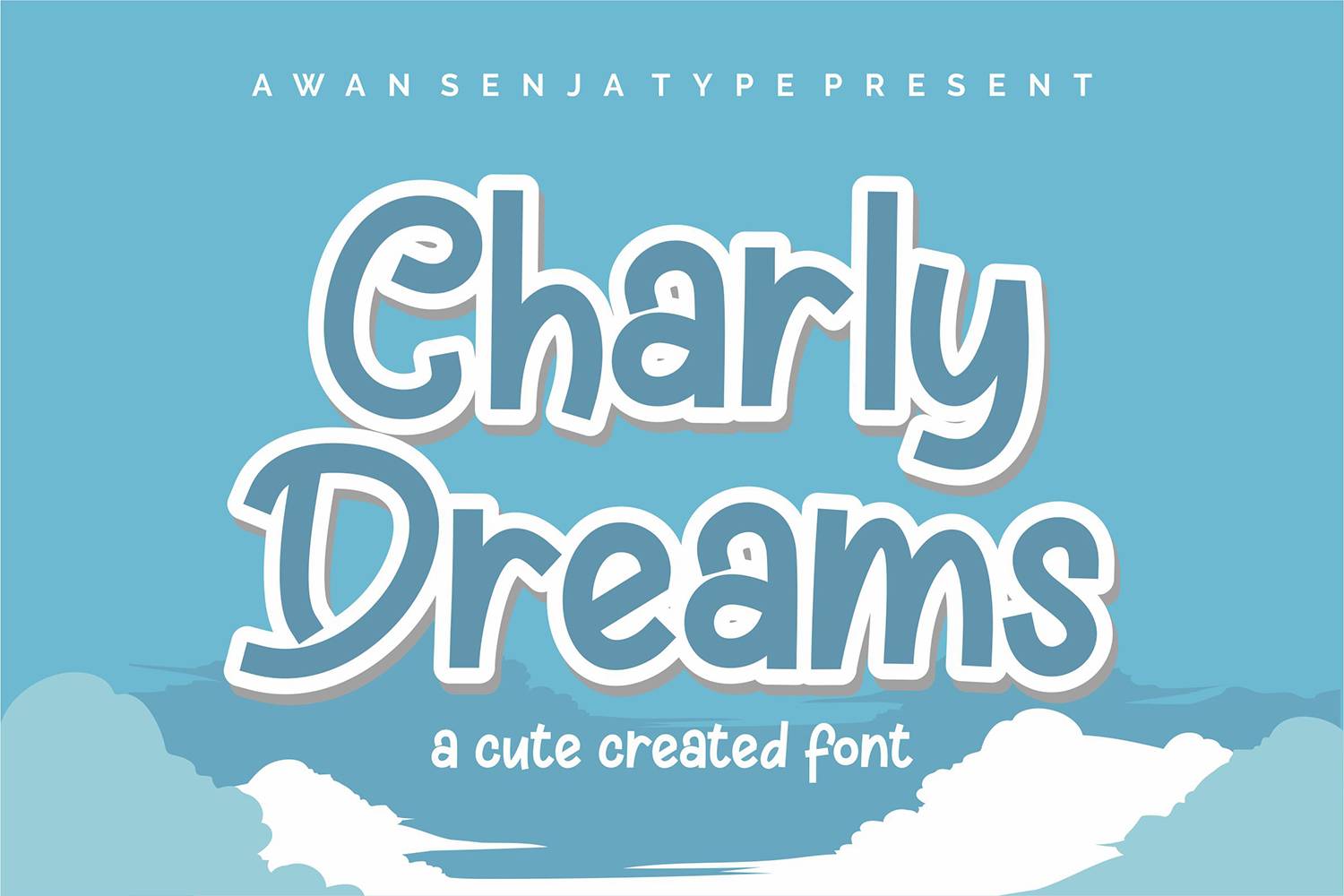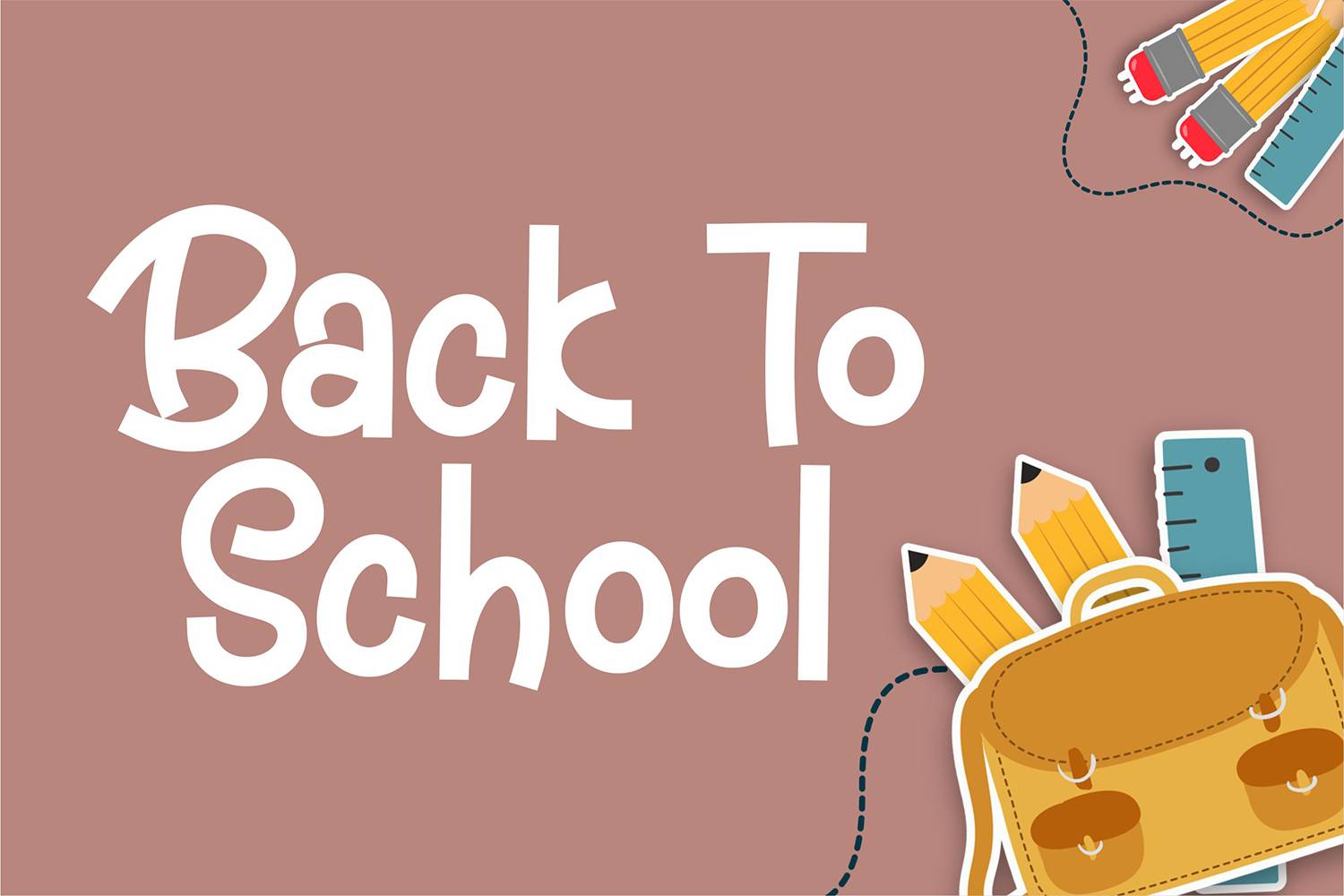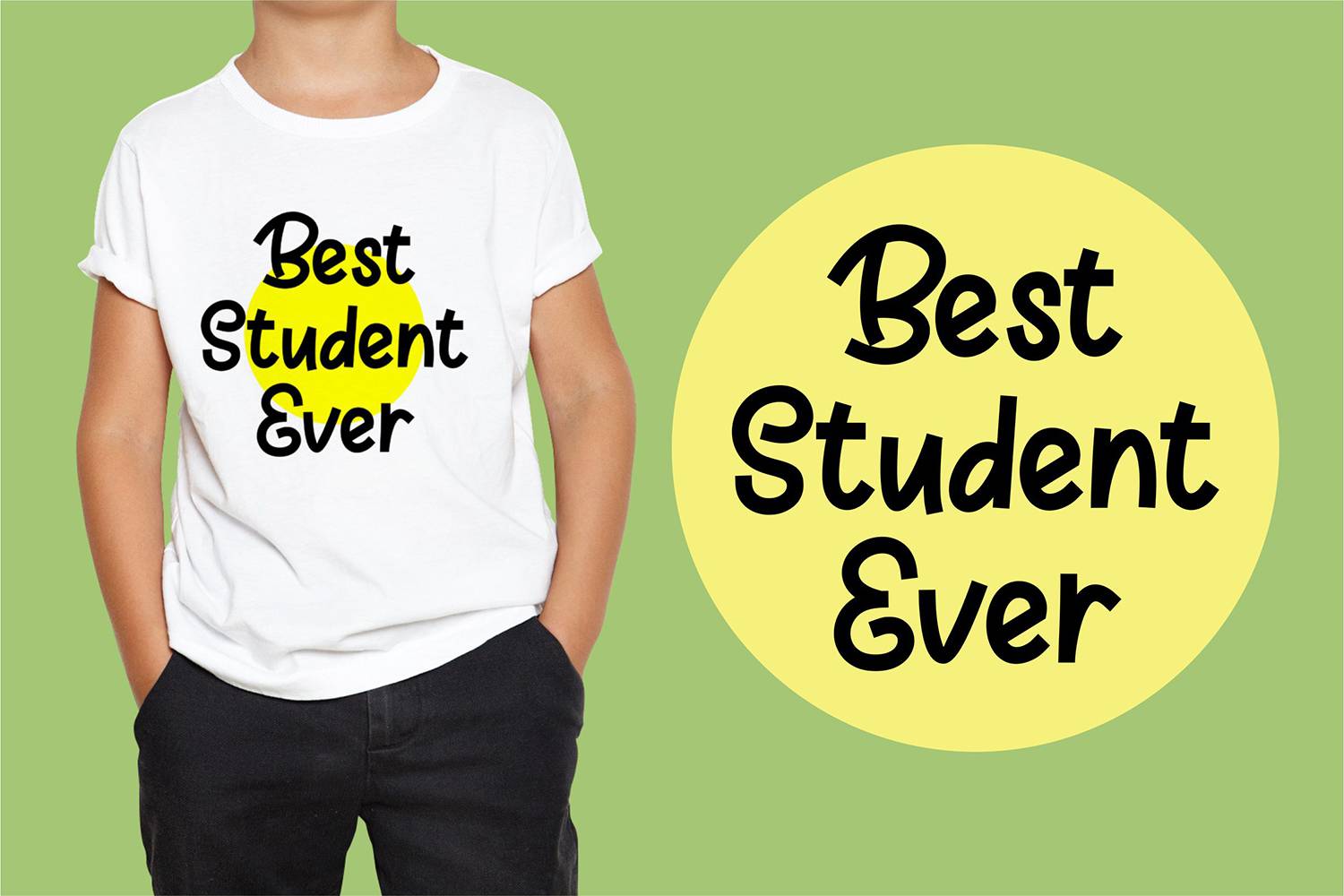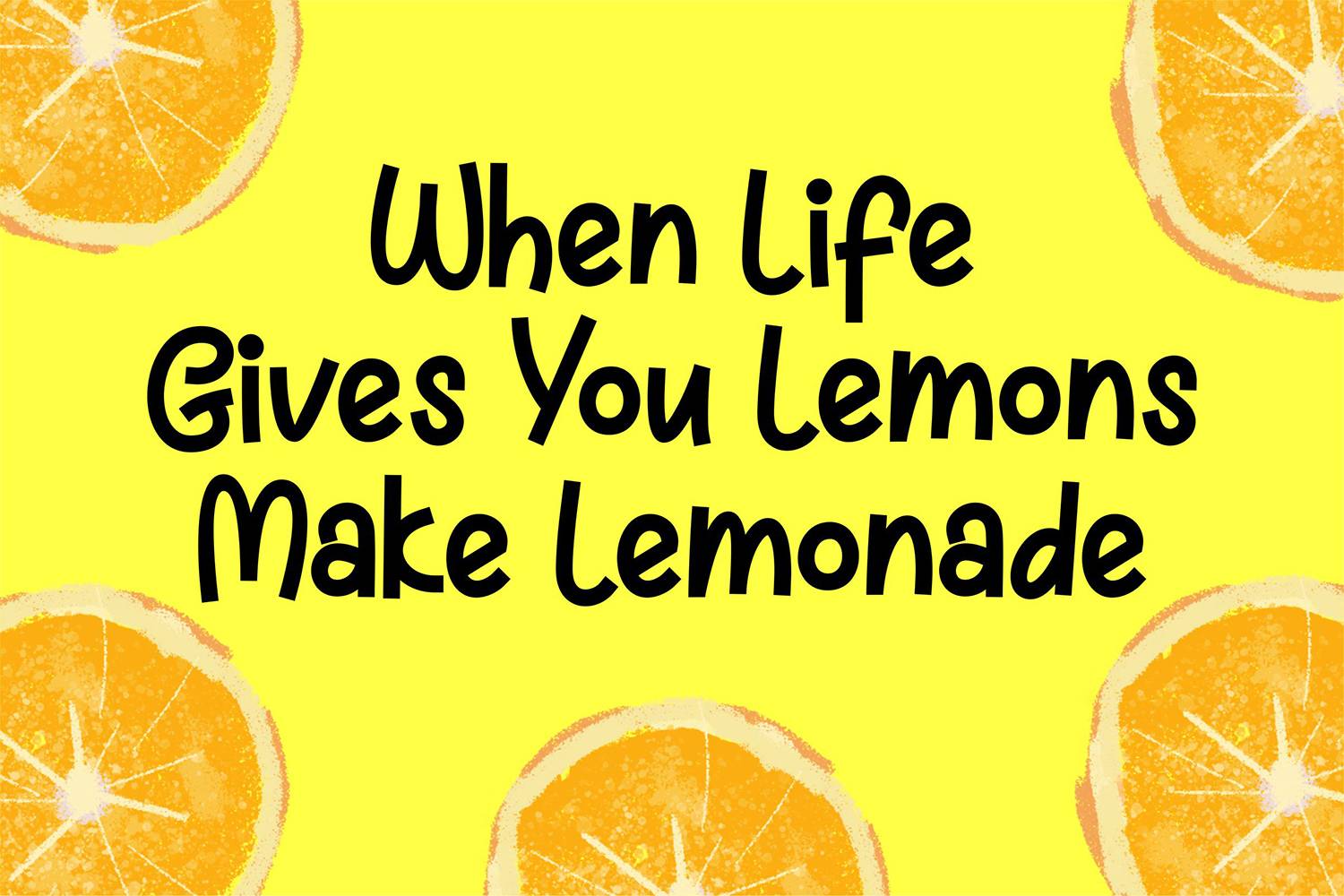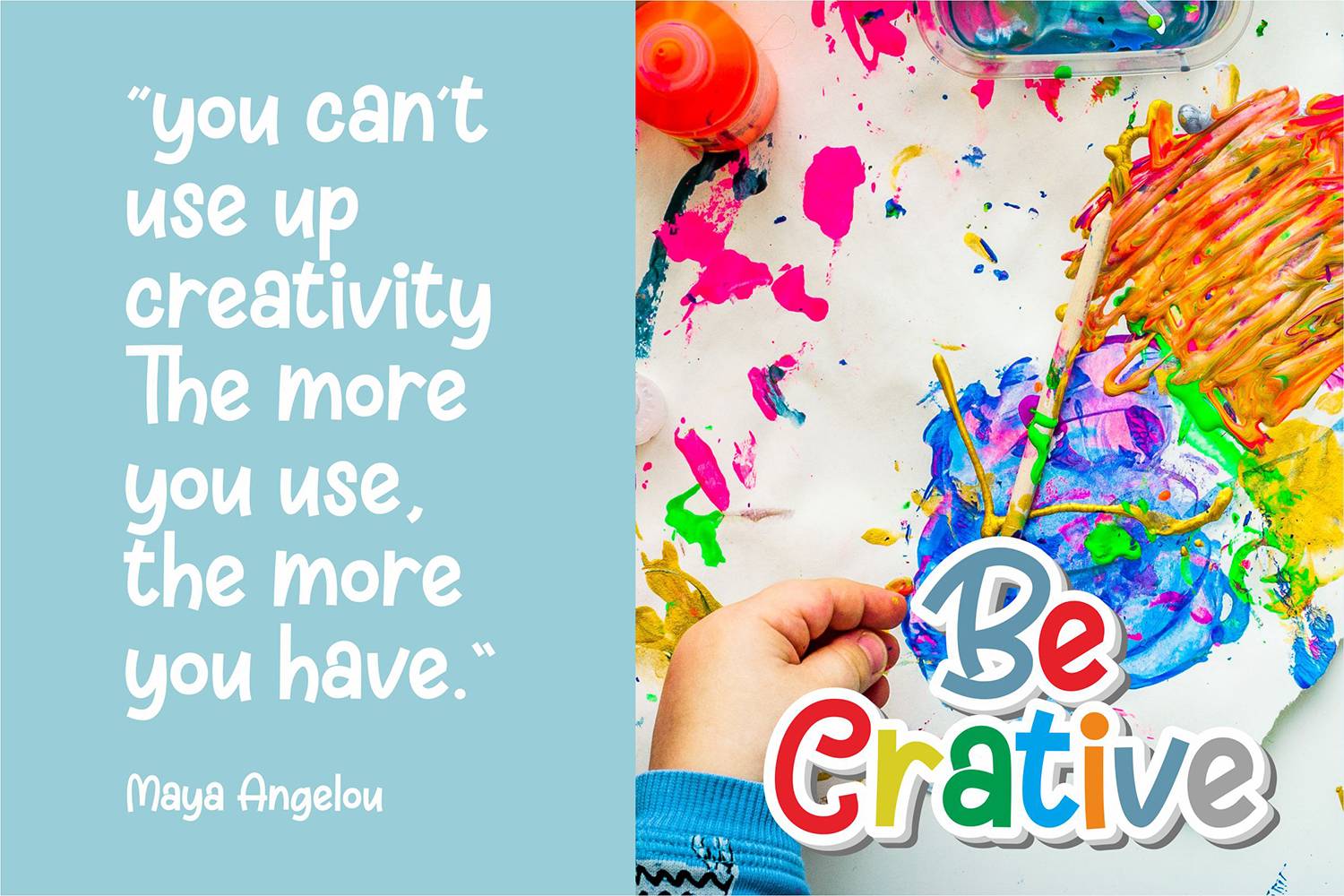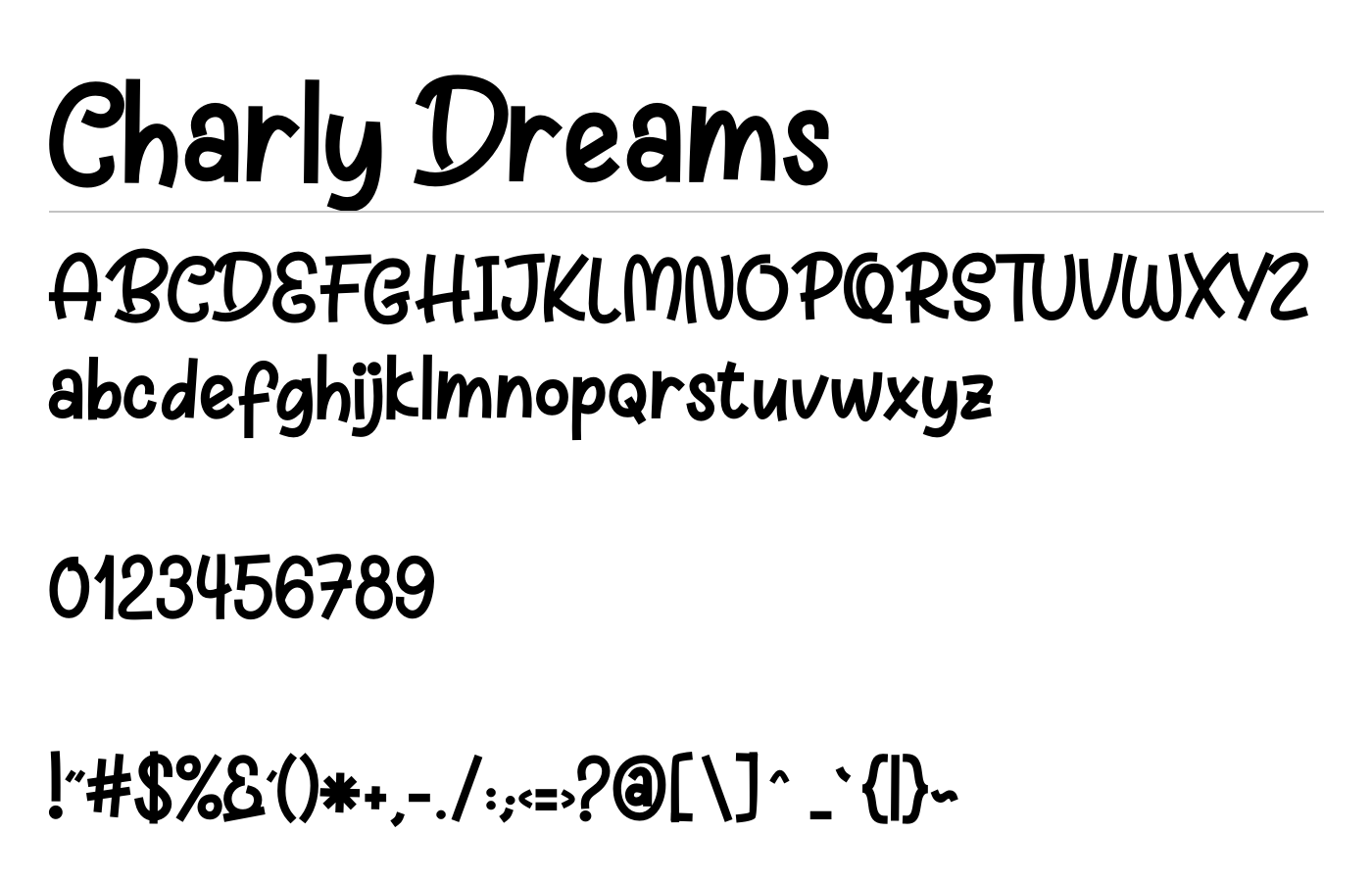
Charly Dreams is a playful, hand-drawn sans serif font with a casual and friendly vibe. Its irregular letterforms, slightly varied stroke widths, and whimsical curves make it ideal for creative, informal designs like children’s books, greeting cards, and fun branding projects. This font works best in headlines and display use where its unique personality can shine and engage viewers.
Charly Dreams Font
About Charly Dreams Font